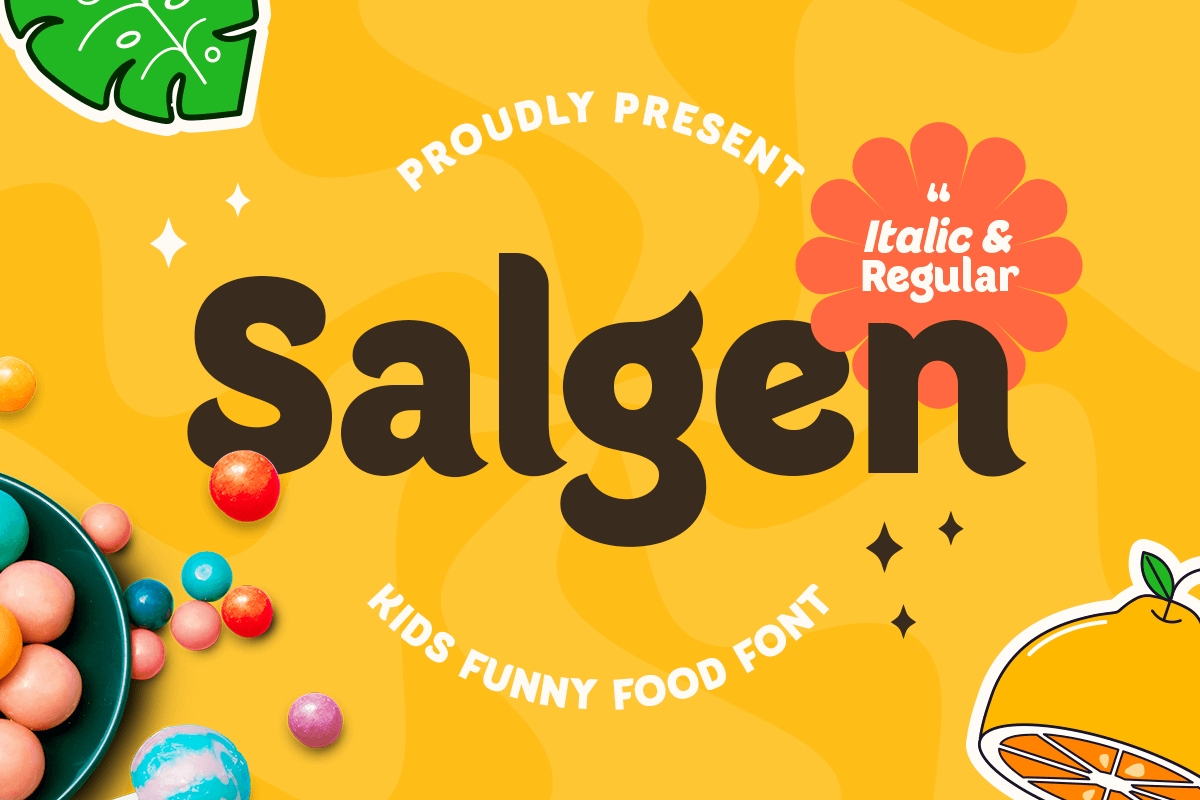
Salgen
-Kids Funny Food Font
Salgen - Kids Funny Food Font
Salgen is a delightful Kids Funny Food Font designed to bring joy and playfulness to any project. Inspired by the cheerful world of children's illustrations and vibrant food packaging, Salgen combines bold shapes and whimsical curves to create a font that feels both fun and appetizing. This font is crafted to capture attention while maintaining readability, making it perfect for young audiences and lighthearted themes.
Whether you're designing for children's books, food product packaging, menus, or playful branding, Salgen adds a lively and charming touch. The font’s playful nature makes it ideal for projects that need a fun and inviting look, appealing to kids and families alike. Its bold lines and quirky details make it versatile and engaging for both digital and print media.
Salgen is perfect for logos, posters, social media graphics, and more. With a range of alternates and full character support, you can customize your designs with ease. Add a sprinkle of fun and creativity to your work with Salgen, and make every project memorable and delightful.